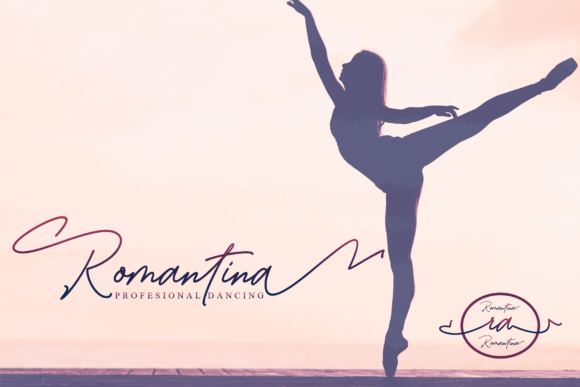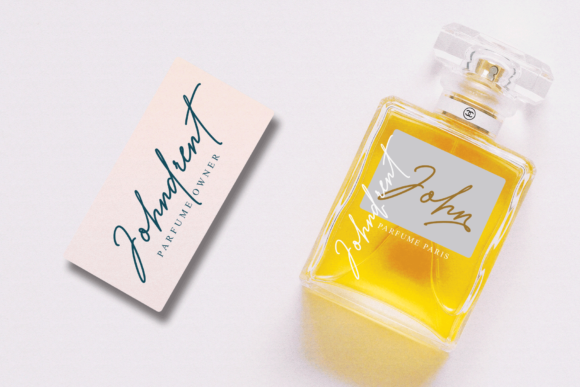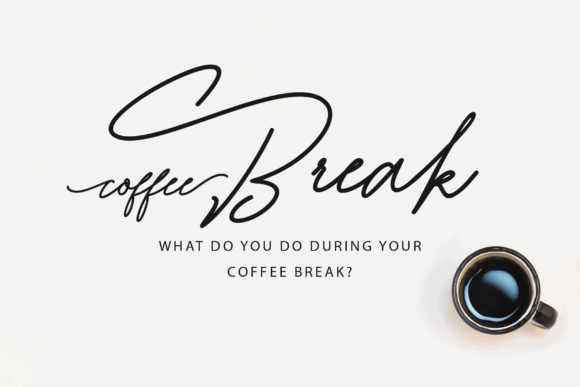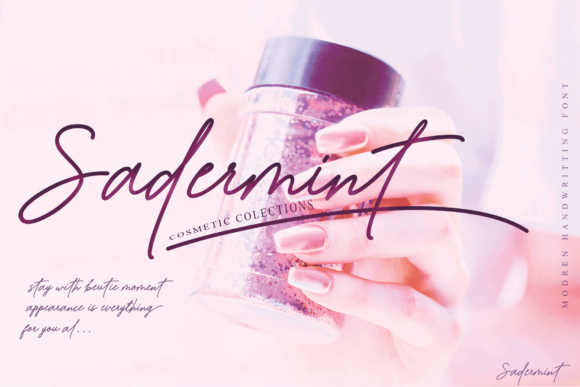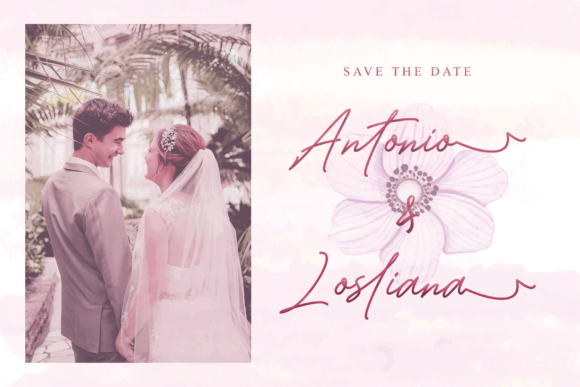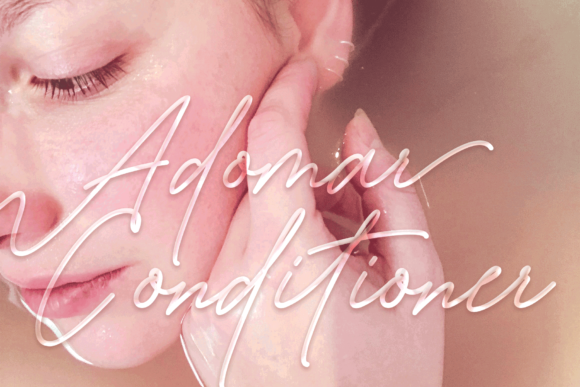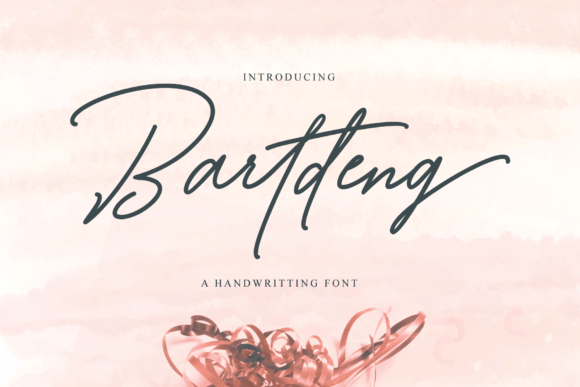
Bartdeng Font: Elevate Your Designs with Luxurious Handwritten Style
In the world of typography, fonts play a crucial role in conveying the tone and aesthetic of a design. For designers and crafters seeking to add an upscale and chic look to their creations, the Bartdeng font is an exceptional choice. This unique handwritten font boasts a luxurious style, making it perfect for a wide range of applications, from logos and signatures to wedding invitations and business cards.
The Unique Characteristics of Bartdeng Font
The Bartdeng font stands out with its distinctive handwritten style, characterized by elegant strokes and a sophisticated flair. Its luxurious appearance is ideal for designers who aim to infuse their projects with a touch of class and refinement. Whether you’re working on a logo, a wedding invitation, or a corporate symbol, the Bartdeng font can help you achieve a high-end look that’s sure to impress.
Versatility at Its Best: Use Cases for Bartdeng Font
One of the key advantages of the Bartdeng font is its versatility. Its luxurious and chic style makes it suitable for a myriad of design projects, including:
- Logos and Signatures: Create a lasting impression with a logo or signature that exudes elegance and sophistication.
- Corporate Symbols: Elevate your brand’s visual identity with a corporate symbol that reflects professionalism and luxury.
- Wedding Invitations: Set the tone for a luxurious and memorable wedding celebration with beautifully designed invitations.
- T-Shirts and Apparel: Add a touch of class to your fashion designs with the Bartdeng font.
- Business Cards and Letterheads: Make a statement with business cards and letterheads that showcase your brand’s commitment to quality and style.
- Nameplates, Headings, and Labels: Use the Bartdeng font to create visually appealing nameplates, headings, and labels that add a touch of luxury to any project.
- Posters, News, and Badges: Whether you’re designing a poster, a news headline, or a badge, the Bartdeng font can help you achieve a professional and upscale look.
- Hot Stamping and Quotations: The Bartdeng font is also perfect for hot stamping applications and quotations, adding a touch of elegance to your designs.
Why Choose Bartdeng Font?
For designers and crafters looking for a font that combines uniqueness with versatility, the Bartdeng font is an excellent choice. Here are a few reasons why:
- Unique and Luxurious Style: The Bartdeng font offers a distinctive handwritten style that’s both luxurious and chic.
- High Versatility: Its wide range of applications makes it a valuable addition to any designer’s toolkit.
- Ease of Use: The Bartdeng font is easy to integrate into various design projects, making it a convenient choice for designers.
- Professional and Sophisticated: It adds a professional and sophisticated touch to any design, making it ideal for projects that require a high level of elegance.
The Bartdeng font is a luxurious handwritten font that can elevate your designs with its unique and upscale style. Whether you’re a designer working on a client’s project or a crafter looking for the perfect font for your handmade creations, the Bartdeng font is an excellent choice. Its versatility, elegance, and sophistication make it suitable for a wide range of applications, from logos and wedding invitations to business cards and posters. By incorporating the Bartdeng font into your design projects, you can add a touch of class and refinement that sets your work apart.